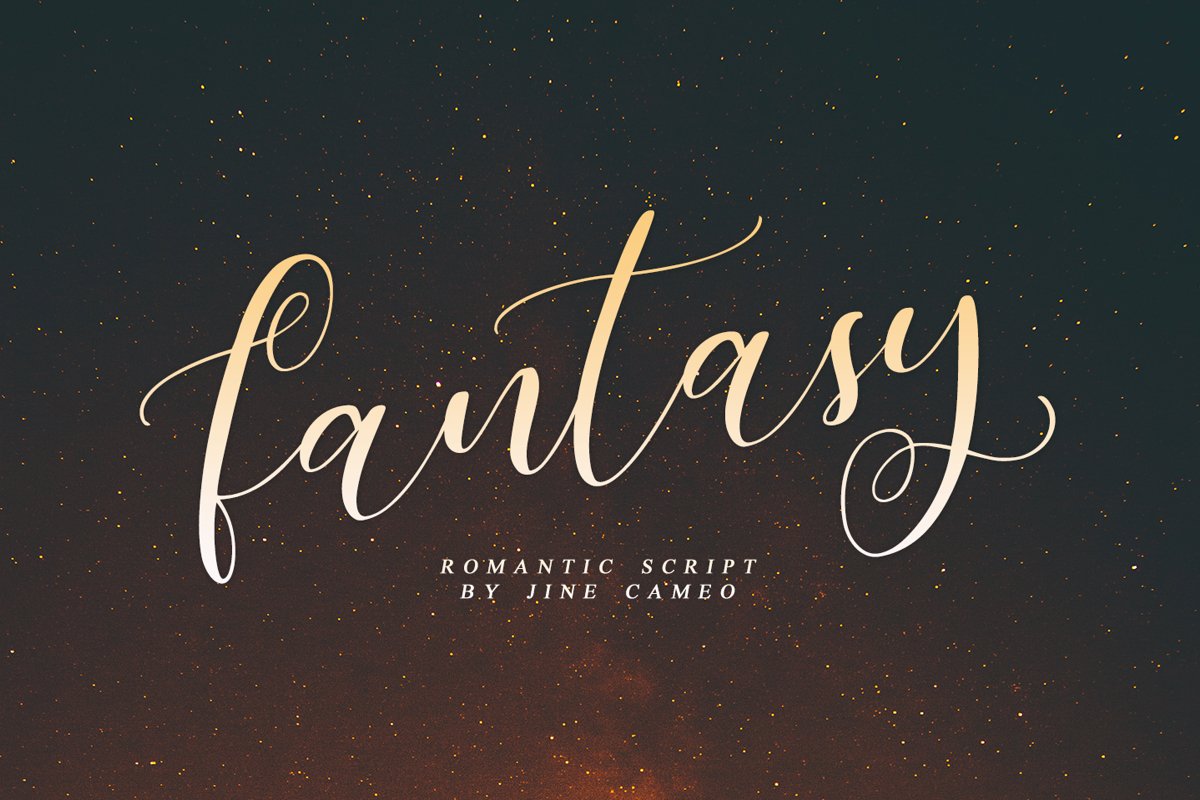
Fantasy - Romantic Script
Fantasy - Unique stylish handwritten font.
Sets the mood, inspires emotions,
Ligatures ( rr, tt )
Multilingual characters (AÀÁÂÃÄÅCÇDÐEÈÉÊËIÌÍÎÏNÑOØÒÓÔÕÖUÙÜÚÛWYÝŸŸ ÆŒßÞàáâãäåæçèéêëìíîïðñòóôõöøùúûüýÿ)
Alternates ( b, f, g, h, j, k, l, q, y, z, b, f, h )